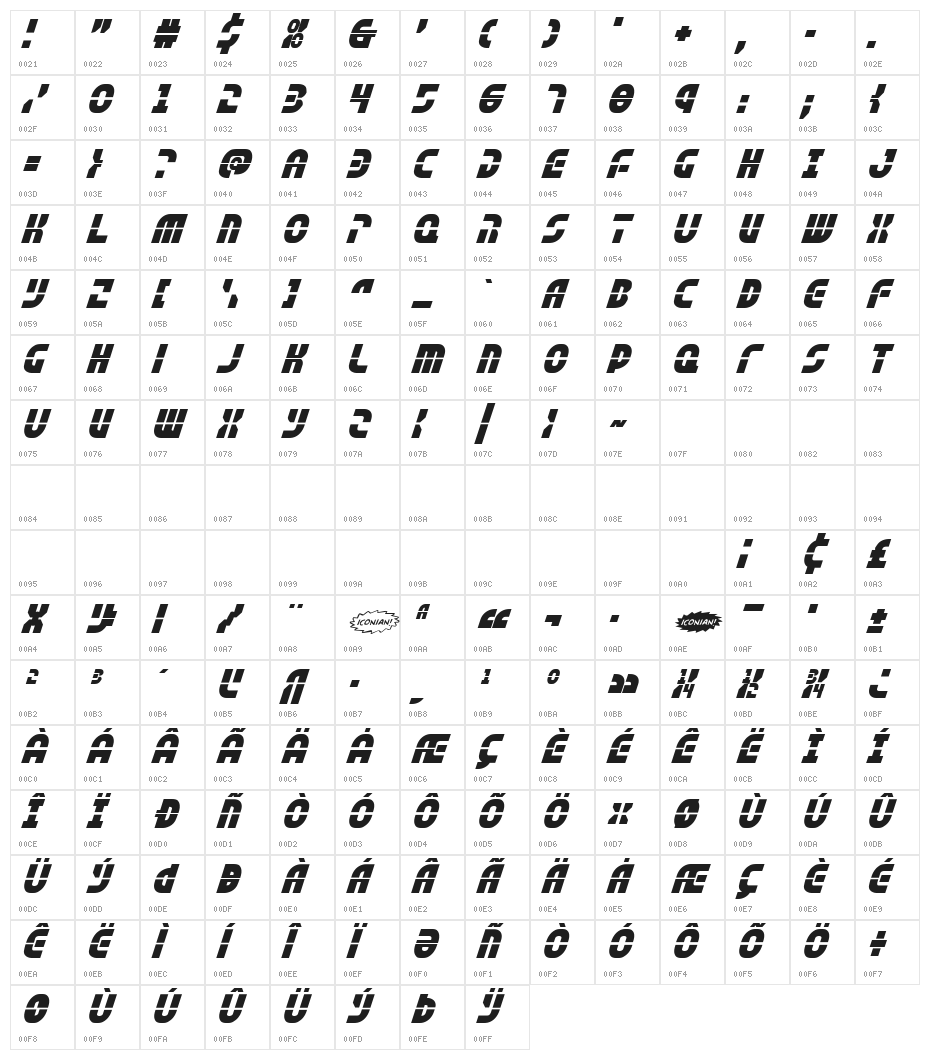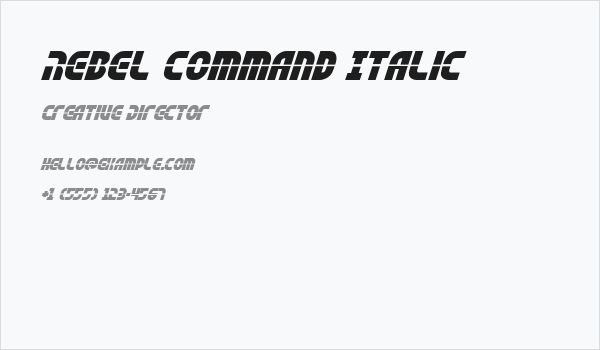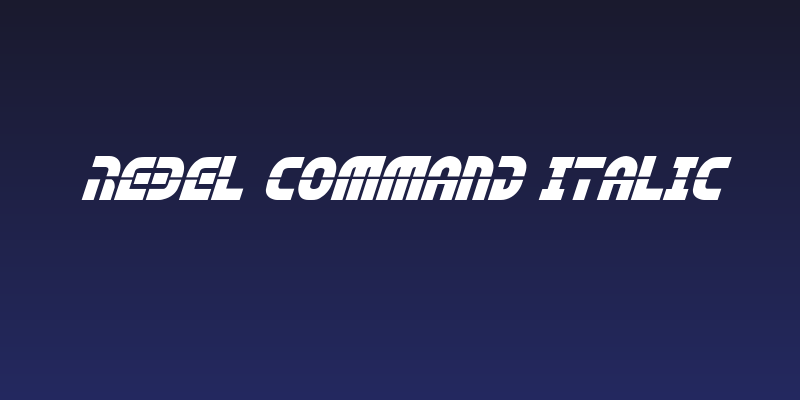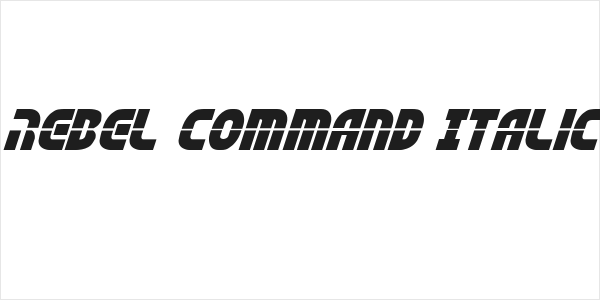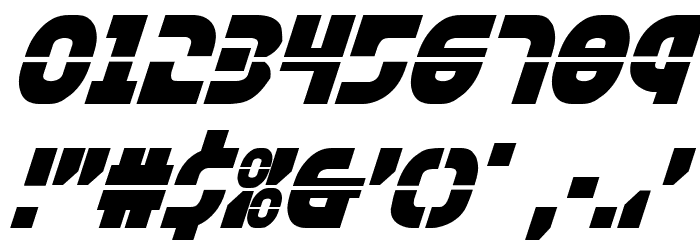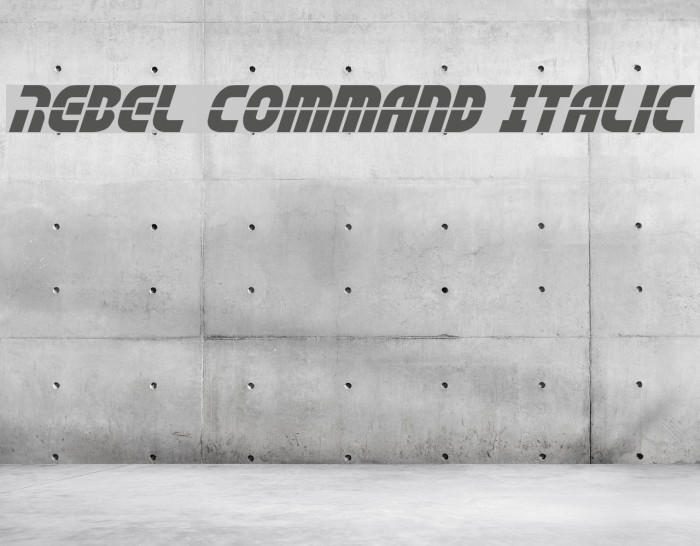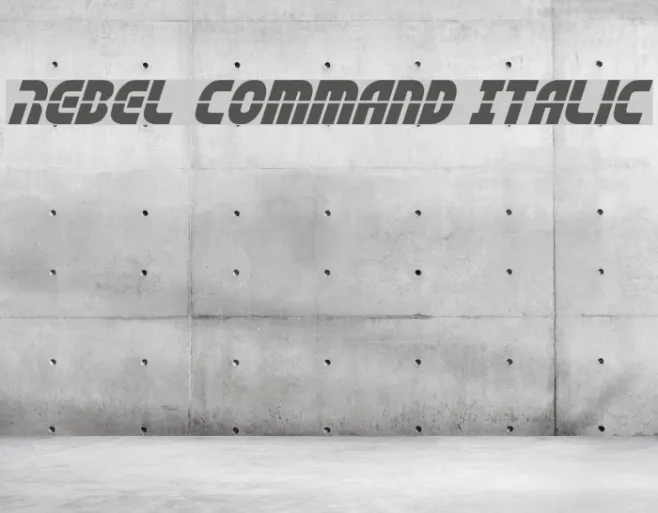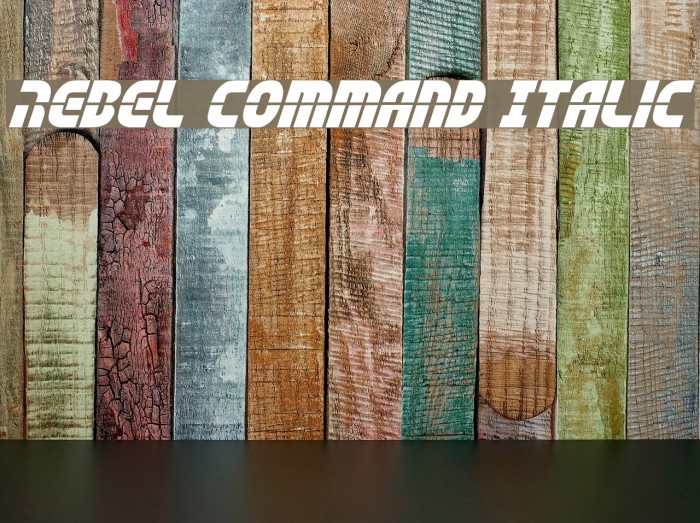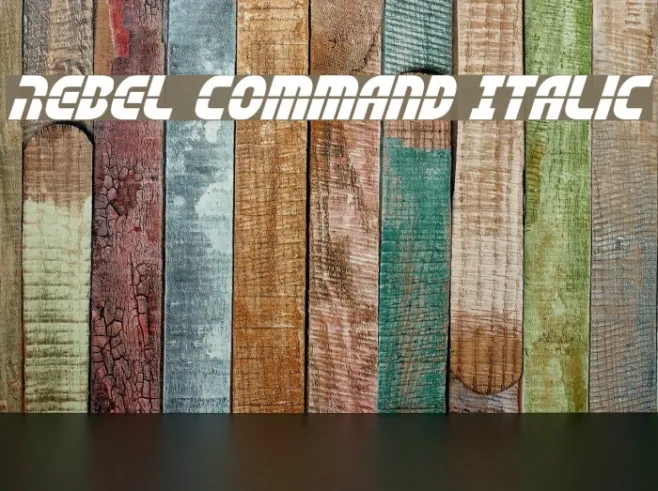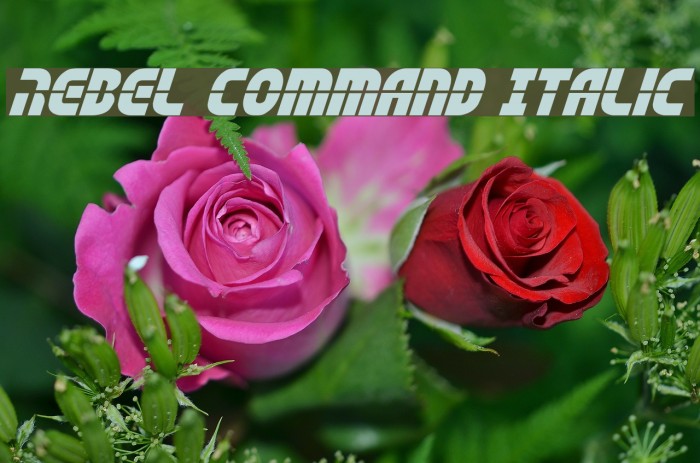
Rebel Command Italic Font
Rebel Command Italic Description
This font exhibits a bold and futuristic style with a distinct italic slant, giving it a dynamic and forward-moving appearance. The characters are constructed with thick, solid strokes that are interrupted by sharp, angular cuts, creating a sense of motion and energy. The uppercase and lowercase letters maintain a consistent style, with the lowercase set mirroring the uppercase in form but reduced in size. The numerals and special characters follow the same design principles, ensuring uniformity across the font. The overall design is modern and assertive, making it suitable for projects that require a strong visual impact.